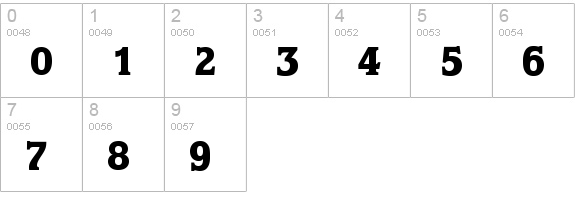
Marbrook Medium Font Details
Marbrook Medium is a balanced, medium-weight variant in the Marbrook typeface family \xE2\x80\x94 well suited to sub-headlines, navigation, and balanced editorial work.
Marbrook Medium font is a versatile and elegant typeface that is perfect for a wide range of design projects. With its balanced and sophisticated letterforms, Marbrook Medium exudes a sense of modernity and professionalism. This font features a medium weight, which strikes the perfect balance between legibility and impact. Whether you are designing a logo, creating a headline, or crafting a body of text, Marbrook Medium will ensure your message is delivered with clarity and style. One of the standout features of Marbrook Medium is that it is freely available to download at FontsMarket.com. This means that you can incorporate this beautiful font into your designs without any cost. FontsMarket.com is a trusted source for high-quality fonts, and they offer a wide range of options to suit every design need. Marbrook Medium is a true gem in the world of typography. Its clean lines and timeless appeal make it a versatile choice for any design project. Whether you are a professional designer or a hobbyist, this font will elevate your work to new heights. So why wait? Download Marbrook Medium for free at FontsMarket.com and start adding a touch of elegance to your designs today.